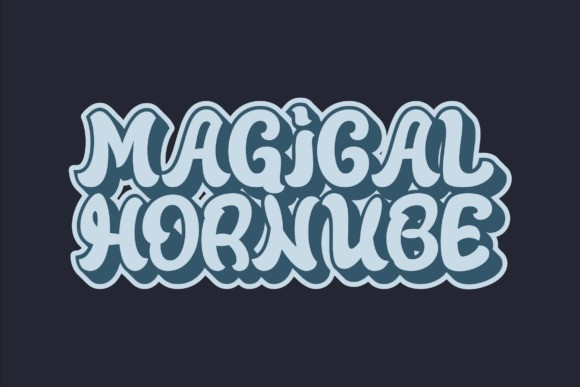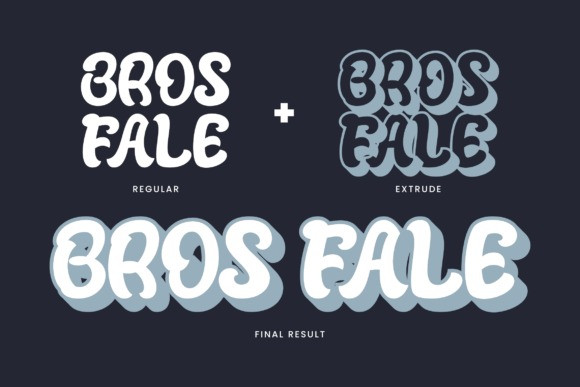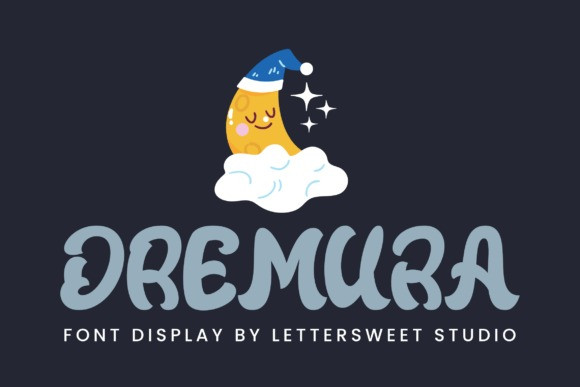
Dremura Font
Dremura Font, a whimsical display font perfect for dreamy designs and playful projects. Inspired by bedtime stories, sleepy moons, and magical nights, Dremura blends soft curves with bold strokes to create a font that feels both fun and comforting. Ideal for kids’ books, nursery art, logos, and cute branding – this font will make your designs shine with charm!
Whether you’re designing a bedtime story cover, creating adorable product packaging, or launching a cheerful brand, Dremura adds that perfect touch of magic and joy. Bring your ideas to life with a font that dreams just as big as you do!